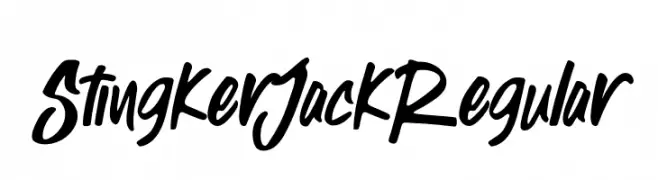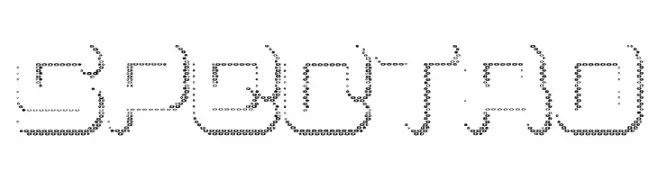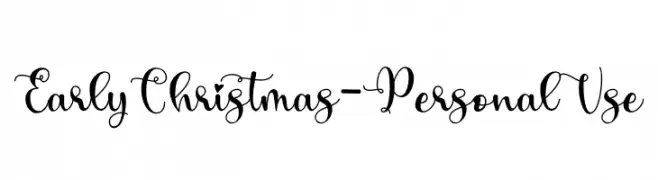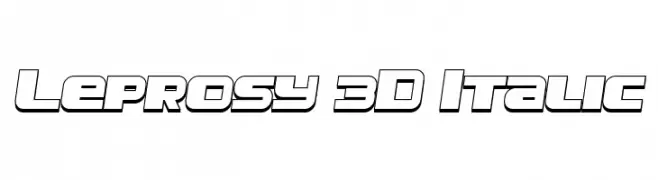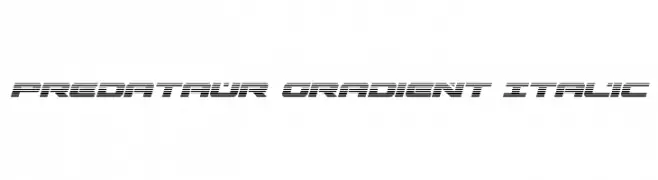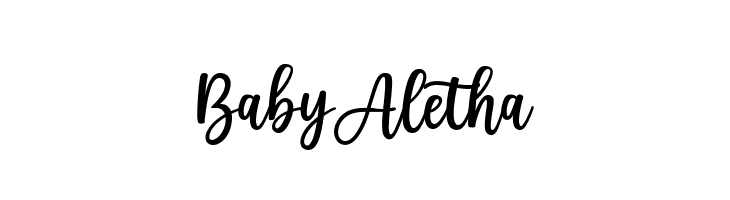
A bold, energetic script font with a hand-drawn, playful style.
A futuristic, dotted font with a digital, pixel-like design.
A bold, expressive script font with fluid, dynamic strokes and a handwritten feel.
A whimsical and ornate script font with decorative swirls and playful accents.
A playful, whimsical font with rounded, curly elements and a lively style.
Bold, 3D italic font with a futuristic and dynamic style.
A bold, wide, and italicized font with a modern and impactful style.
A futuristic italic font with a gradient line effect, ideal for modern designs.
A modern, bold, semi-condensed sans-serif font with excellent readability.
A bold, hollow, 3D-effect font with sharp angles and geometric structure.